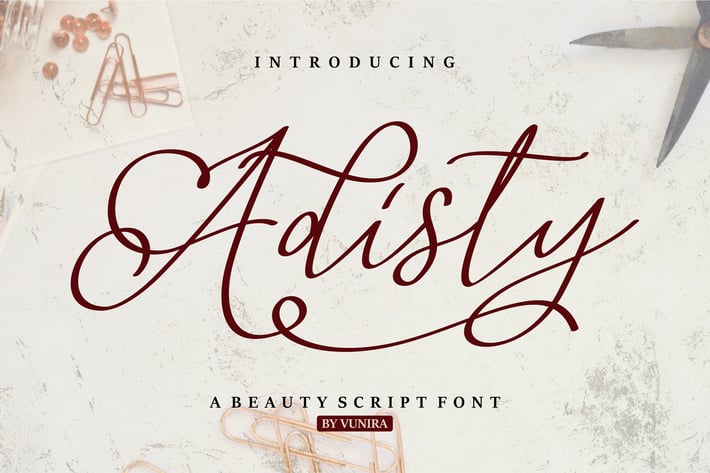
Adisty | A Beauty Script Font
Adisty | A Beauty Script Font with a calligraphy style, So beautiful on invitation like greeting cards, branding materials, business cards, quotes, posters, and more!